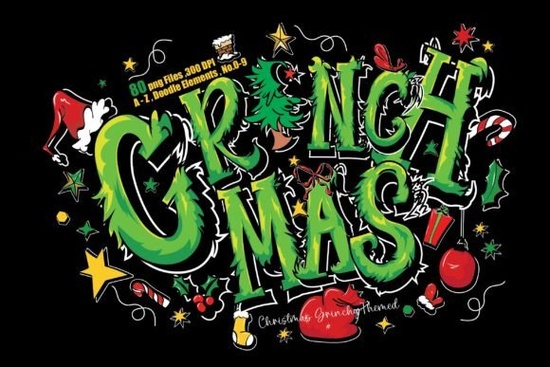
If you've been searching for a way to add a mischievous, holiday-themed twist to your projects, the Grinchmas Font offers something a little different. Unlike a standard typeface you install on your computer, this is a complete set of hand-drawn PNG graphics. Think bold green letters, playful Christmas elements, and a style that leans into the fun, slightly spooky side of the season. It's designed for crafters and sellers who want that distinct look without needing to wrestle with complicated design software.
What exactly is the Grinchmas Font and how does it work?
This product is essentially a digital sticker sheet for your designs. Instead of typing out text with a keyboard, you drag and drop individual letter images onto your canvas. Each file comes with a transparent background, which makes layering them over colored backgrounds, photos, or patterns incredibly simple.
The set includes uppercase letters A–Z, numbers 0–9, punctuation marks, and extra doodle and Christmas elements. Since everything is provided as high-resolution PNGs at 300 dpi, the quality stays sharp whether you are printing a sticker or posting a graphic on social media.
Why choose a PNG letter set over a traditional font?
Traditional OTF or TTF fonts can sometimes be tricky with unique, highly stylized designs. The letter spacing might look off, or the software might not render the decorative elements correctly. With PNG files, you have complete control. You can rotate each letter individually, resize them without worrying about missing glyphs, and place the extra elements exactly where you want them. This is especially useful if you are working in programs like Procreate, Canva, or Photoshop where you want to manually arrange a word or phrase for a t-shirt or poster.
What can you actually make with these Grinchmas letter files?
This pack is surprisingly versatile. Here are a few practical ways people are using it for commercial projects and personal crafts:
- Print-on-demand t-shirts and hoodies – The bold green letters stand out well on dark fabrics like black or navy.
- Horror party invitations – The style fits perfectly for a themed Christmas gathering with an edge.
- Stickers and decals – The transparent background makes cutting and layering a breeze.
- Digital art and sublimation prints – Use the letters and doodle elements to create unique mugs, pillows, or phone cases.
- Social media graphics and Pinterest pins – Add a fun, handmade feel to your holiday marketing images.
- Product covers and headers – Give your digital products a cohesive, themed look during December.
If you enjoy working with colorful font styles like these, you will appreciate how easy it is to mix and match the elements from this set.
How do you use PNG letter sets in your design software?
In Photoshop or Affinity
Drag all the letter files into your project as layers. Use the move tool to arrange them. The transparent background means you can place them over any background color or image immediately.
Tip: Since these are individual files, it helps to rename them with the letter name for faster searching. For example, rename a file to "Grinch_A.png" so you can quickly find it when you need it.
What's included in the Grinchmas Font pack?
Before you buy, it helps to know exactly what you are getting. This is a digital download delivered in ZIP files:
- 80 PNG files total – all with transparent backgrounds for easy layering
- 26 uppercase letters (A–Z) in the signature green Grinch style
- 26 Grinchmas elements – extra graphics to decorate your text
- 16 doodle elements – smaller accents for borders or fillers
- Numbers 0–9 and punctuation marks – including the handy ! ? symbols
This approach works well for any project, whether you are making a single t-shirt design or a complete set of holiday printables. The key is to experiment with the layout and spacing since you have manual control over each piece.